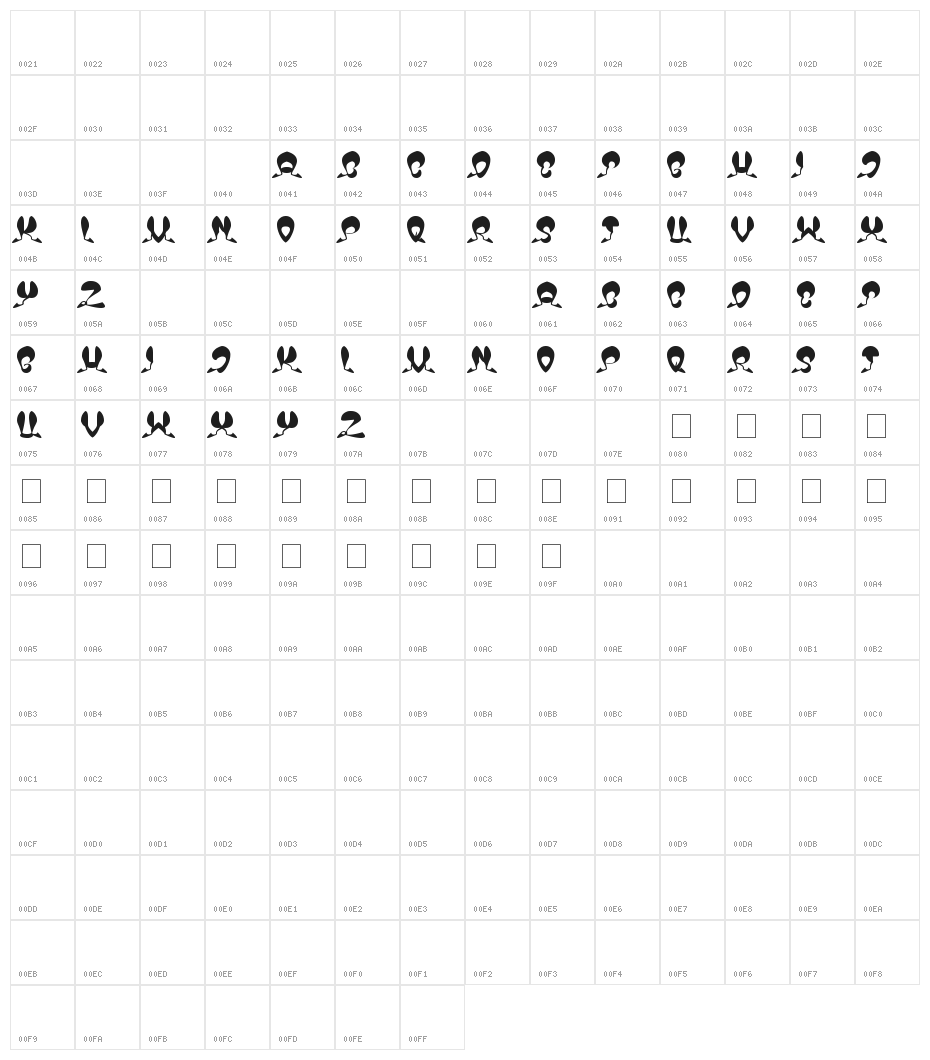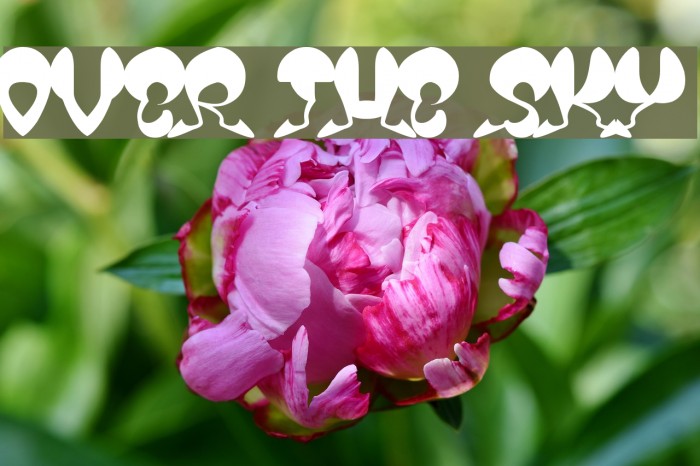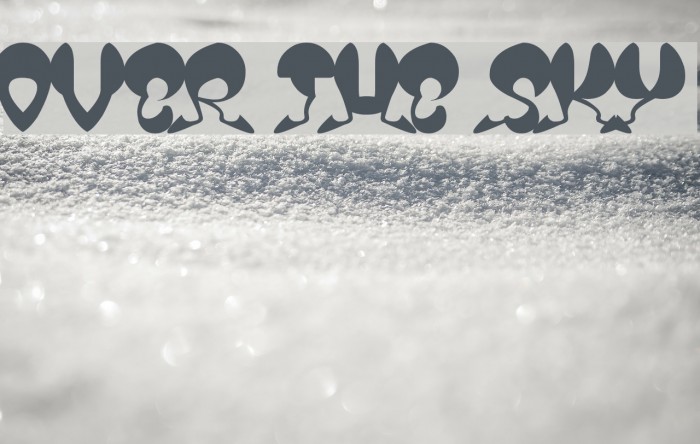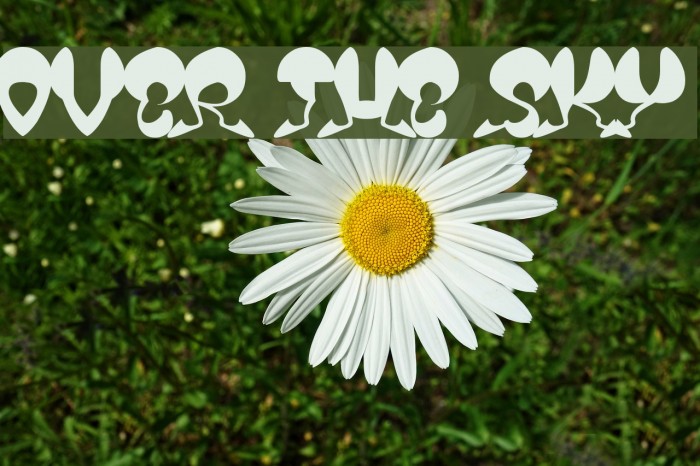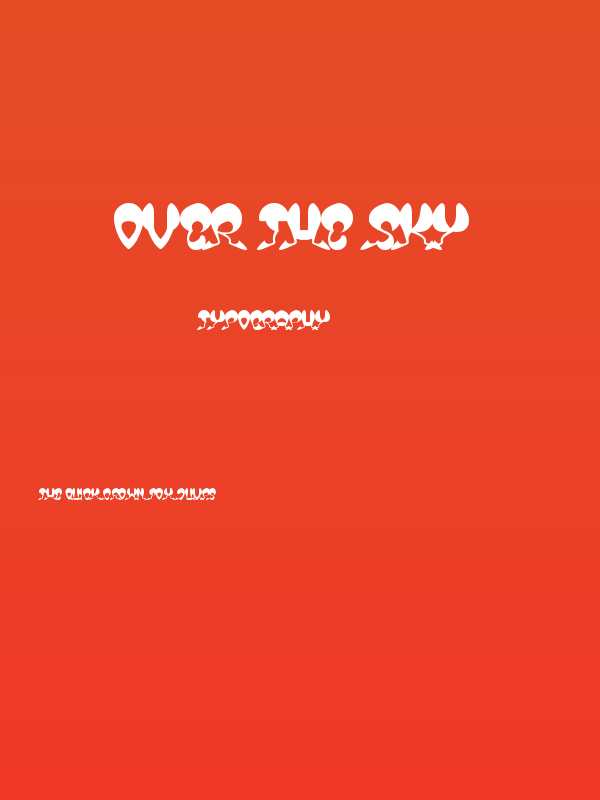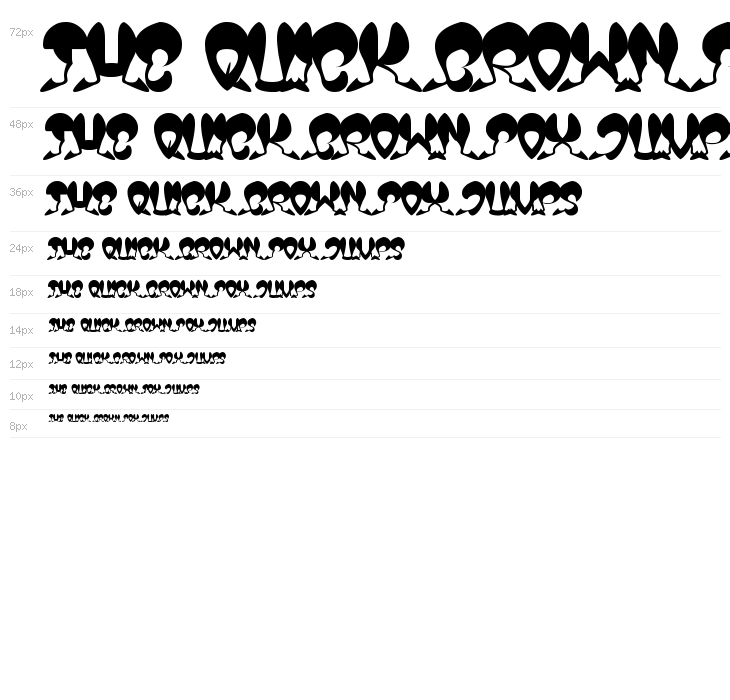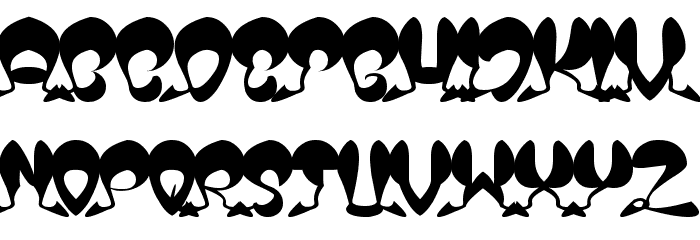
OVER THE SKY Font
OVER THE SKY Description
This font features a bold and playful design with a unique, whimsical style. Each character is crafted with a heavy weight and a distinct, artistic flair that resembles a combination of abstract shapes and playful elements. The characters are tightly spaced, creating a cohesive and compact appearance. The font's high contrast between thick and thin strokes adds to its dynamic and eye-catching nature. Its decorative style makes it suitable for creative and artistic projects, where a bold statement is desired.